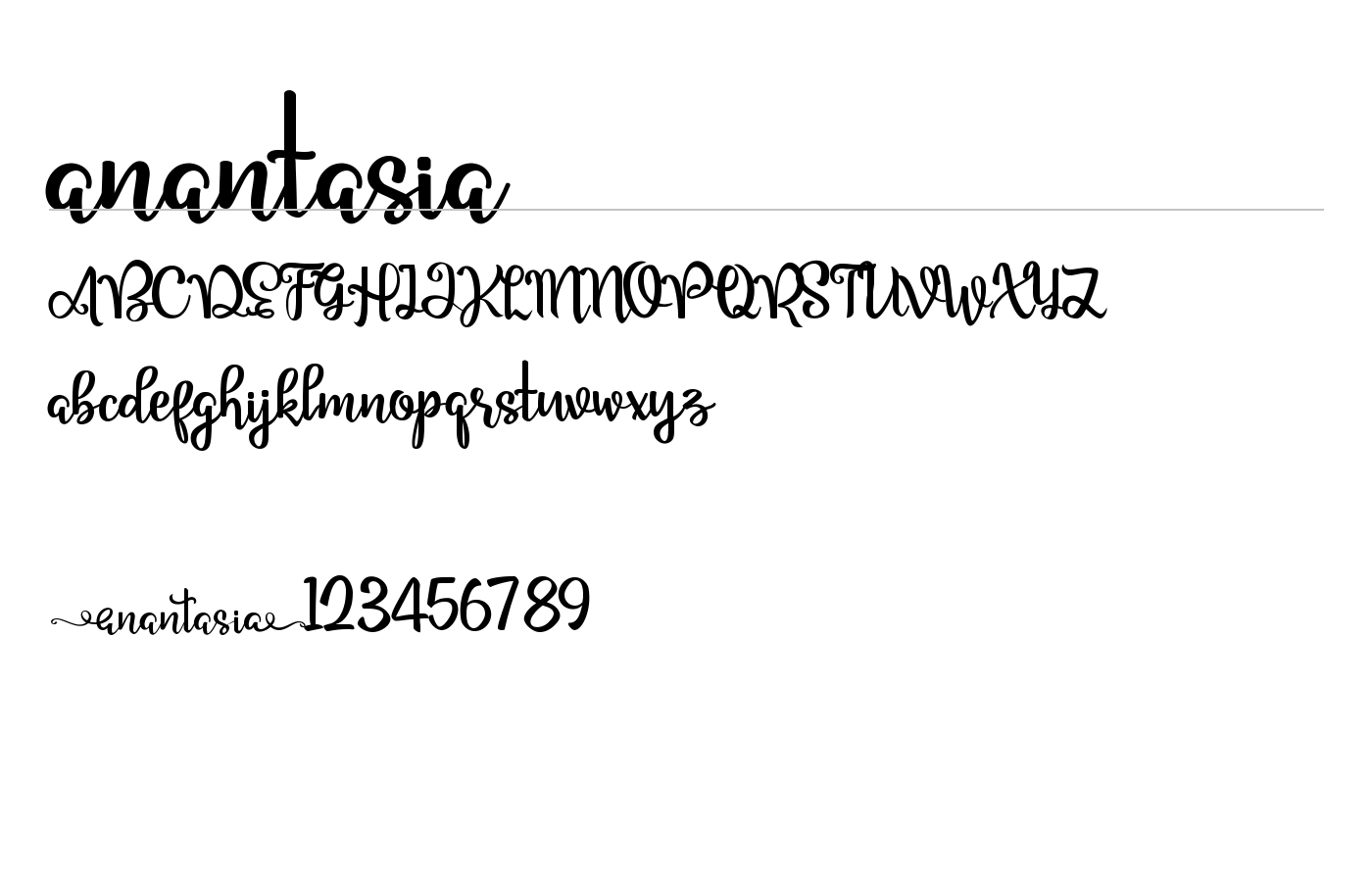
Anantasia is a playful and elegant script font characterized by its smooth, flowing strokes and delicate swashes, giving it a hand-lettered, whimsical feel. With its medium weight and balanced spacing, it works beautifully for creative branding, invitations, and decorative headlines where a charming and personalized touch is desired. This font shines in projects that need an artistic, friendly vibe with a hint of sophistication.
anantasia Font
About anantasia Font
| Font family | anantasia Font |
| Designer | Subectype. 2019 |